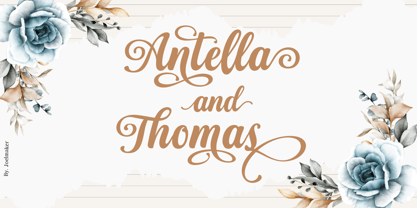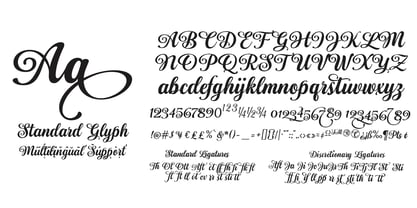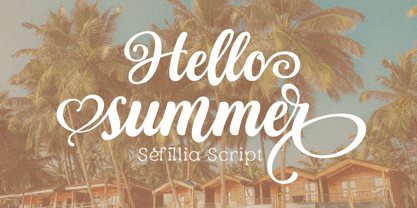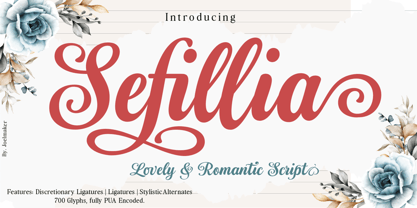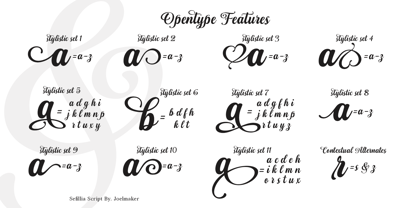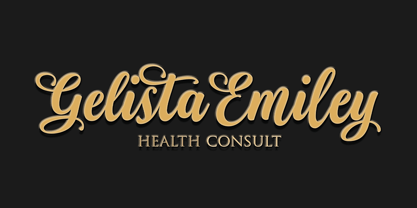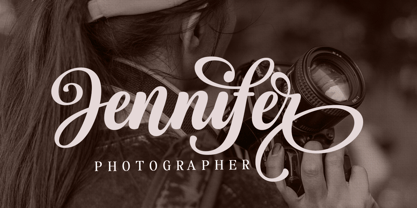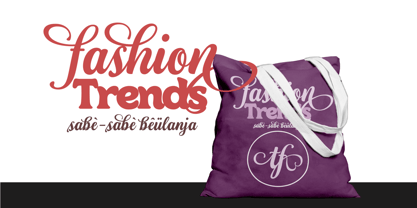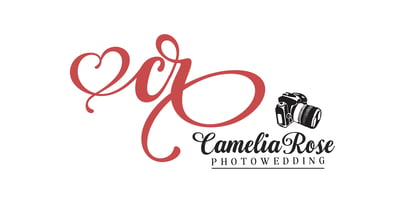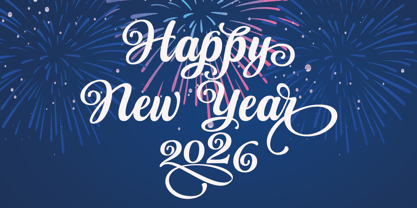
Sefillia Script
The Sefillia Script Font Family was designed by Joelmaker and published by Joelmaker. Sefillia Script contains 1 styles. More about this family
Sefillia: Timeless Romance in Every Stroke Elevate your designs with Sefillia, a premium calligraphy script that perfectly balances elegance and playfulness. Characterized by its fluid, rhythmic curves and sophisticated flourishes, this font is designed to bring a touch of luxury and heartfelt emotion to any project. Artistic Versatility, Includes 660+ glyphs, offering a vast library of stylistic alternates and ligatures to create truly custom typography. Exquisite Detail: Features elegant swashes and discretionary ligatures that mimic authentic, hand-drawn calligraphy. Fully PUA Encoded, allowing easy access to all special characters without needing professional design software. Perfect For: Wedding invitations, high-end branding, romantic greeting cards, social media quotes, and elegant packaging. Romantic Aesthetic, Its fluid motion and soft swashes bring a touch of warmth and high-end craftsmanship to any project. And Transform your creative vision into a masterpiece with the lovely and romantic charm of Sefillia. Experience the art of beautiful writing where every character tells a story of love.
Sefillia Script